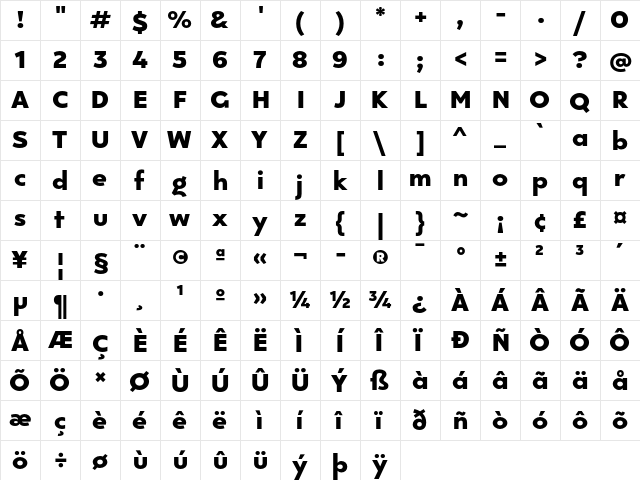
Kepler 296 Regular
| Foundry | Igor Kosinsky |
| Designer | Igor Kosinsky |
Design Context for Kepler 296 Typeface
Kepler 296 offers clean, dependable letterforms without strong stylistic allegiance, making it a practical choice for designers who need flexibility.